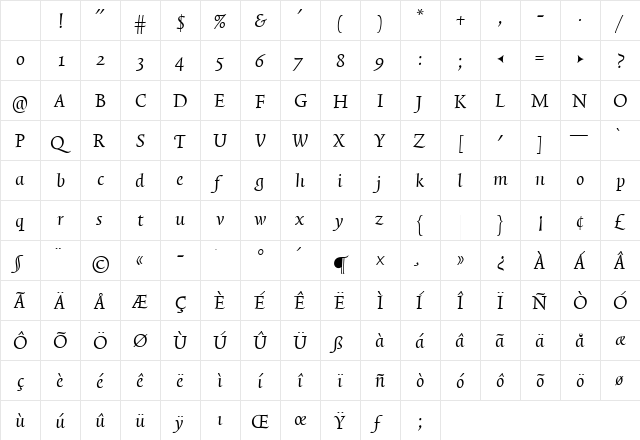
Complete TriniteNo1 Italic glyph index. Displaying only characters natively supported by TriniteNo1 Italic font.
TriniteNo1 is a composed and adaptable typeface that performs quietly and consistently across a wide range of design contexts. The slanted form adds forward momentum and visual energy.
Pro Tip: Use TriniteNo1 for emphasis, pull quotes, and subheadings where its slanted energy can add rhythm to the layout.